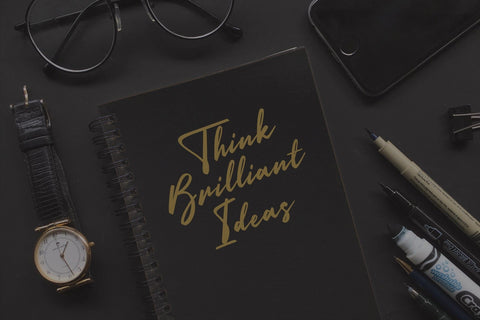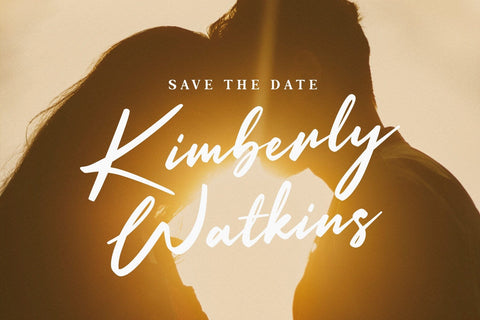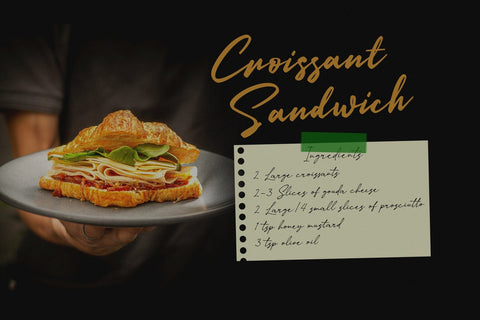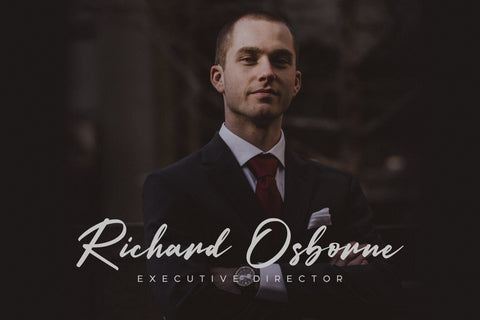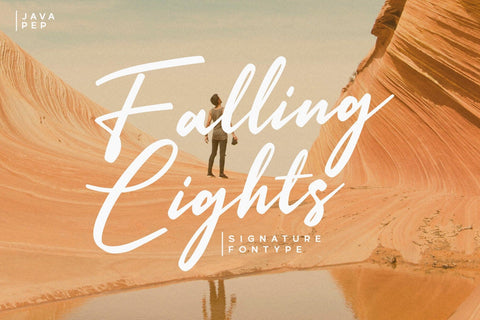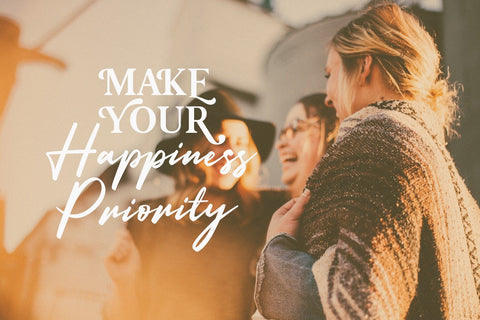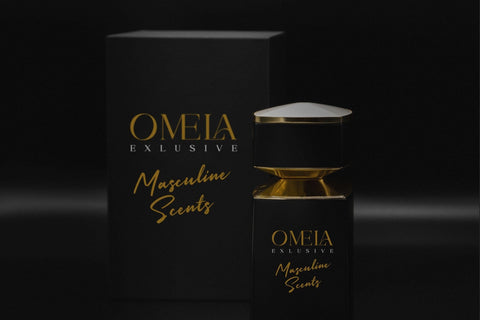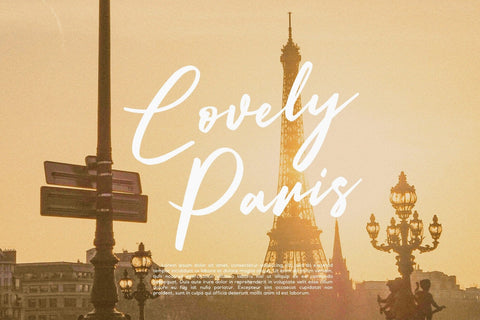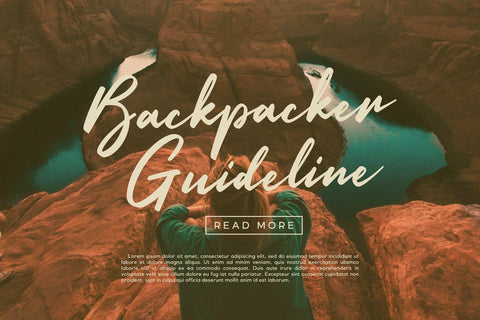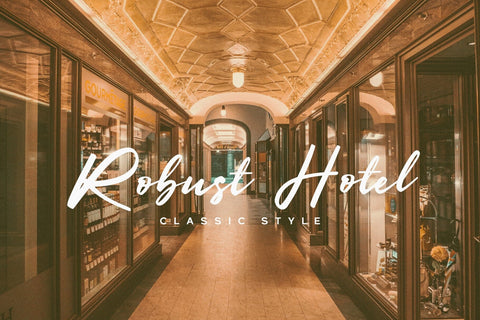
Falling Lights / Signature Font
Introducing a signature font called Falling Lights, this font is made of pretty shapes and strokes so Falling Lights font is perfect for branding, wedding invitations, greeting cards, publishing, logotype, headlines, quotes, advertising, product packaging, etc.
- Uppercase & lowercase
- Punctuations
- Multilingual Support 30+ languages